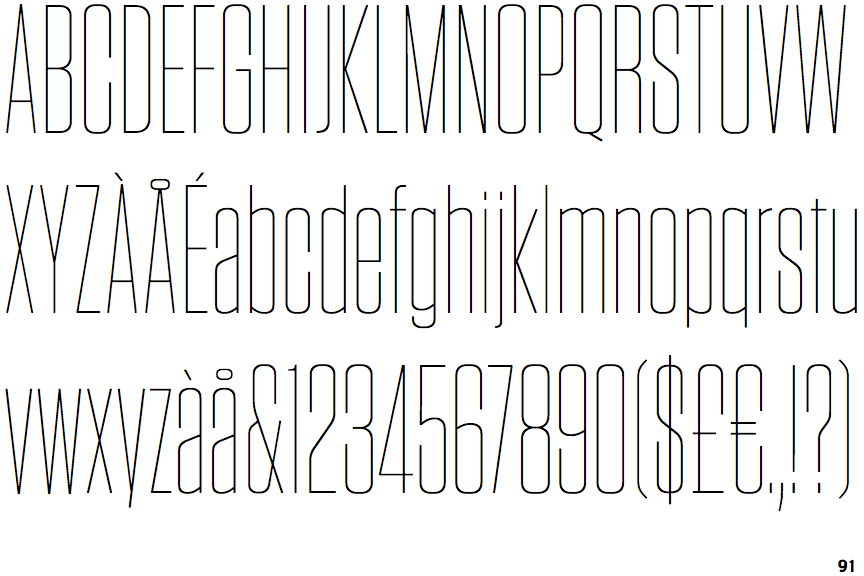
Tungsten Compressed Thin
One of the Tallest sans-serif fonts for narrow spaces.
Designers: Jonathan Hoefler and Tobias Frere-Jones Year: 2009 Publisher: Hoefler & Co. |